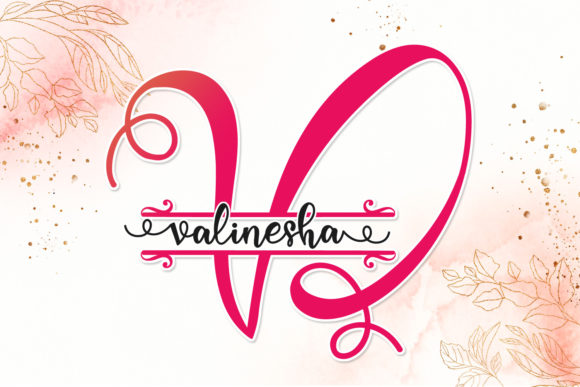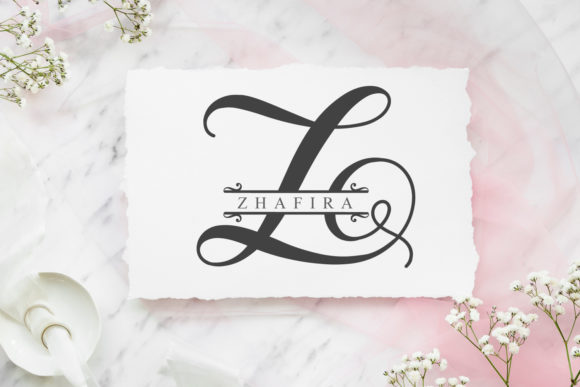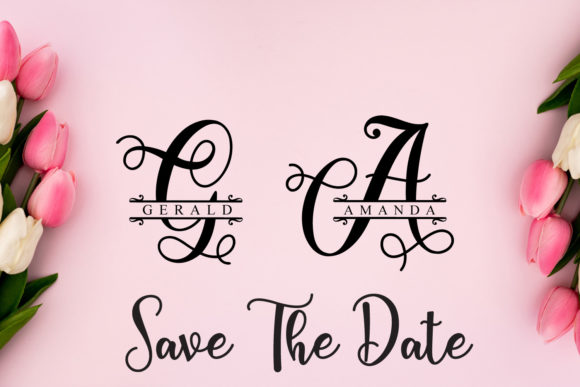
Elennia Monogram Font
About the Elennia Monogram Font
Let us introduce you to Elennia Monogram Font, where timeless design meets modern craftsmanship. Elennia monogram is a charming decorative font. Fall in love with its authentic feel and use it to create gorgeous invitations, beautiful stationary art, eye-catching social media posts, and cute greeting cards.
Elennia’s decorative style is ideal for headlines, short text blocks on invitations, branding elements such as logos or short taglines, and social media graphics. It shines in applications requiring a touch of vintage charm or handcrafted elegance. However, its ornate details make it unsuitable for body text or lengthy paragraphs; readability suffers at smaller sizes. Avoid using it in user interfaces (UI) where clarity and legibility are paramount.
Pair Elennia with a clean sans-serif like Montserrat or a modern serif such as Lato for a balanced design. For a more playful feel, consider pairing it with a script font like Great Vibes. The combination of Elennia’s decorative charm with a neutral counterpart ensures visual harmony without overwhelming the design.
Elennia possesses a distinctly elegant and slightly playful personality. Brands focused on artisanal products, boutique businesses, or vintage-inspired aesthetics will find it particularly suitable. Its charming yet sophisticated character is perfect for projects needing a touch of old-world romance without being overly fussy.
Elennia Monogram Font Usage Examples
Elennia Monogram Font Example